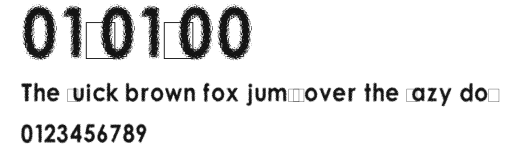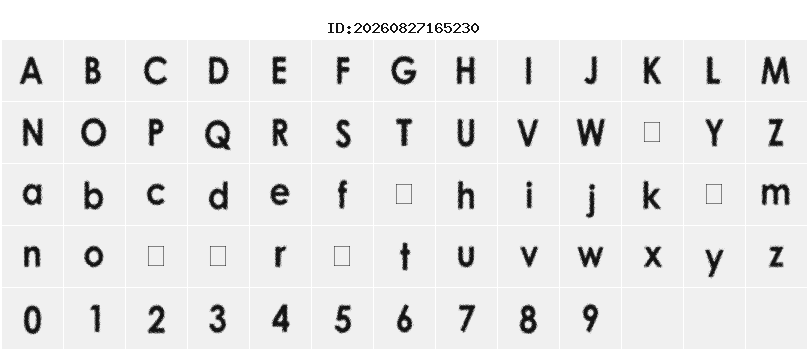
• Font Name: 01-01-00
About 01-01-00.ttf
01-01-00.ttf is a modern, elegant sans-serif font designed for ultimate readability and visual harmony. Perfect for branding, headlines, web design, and print materials.